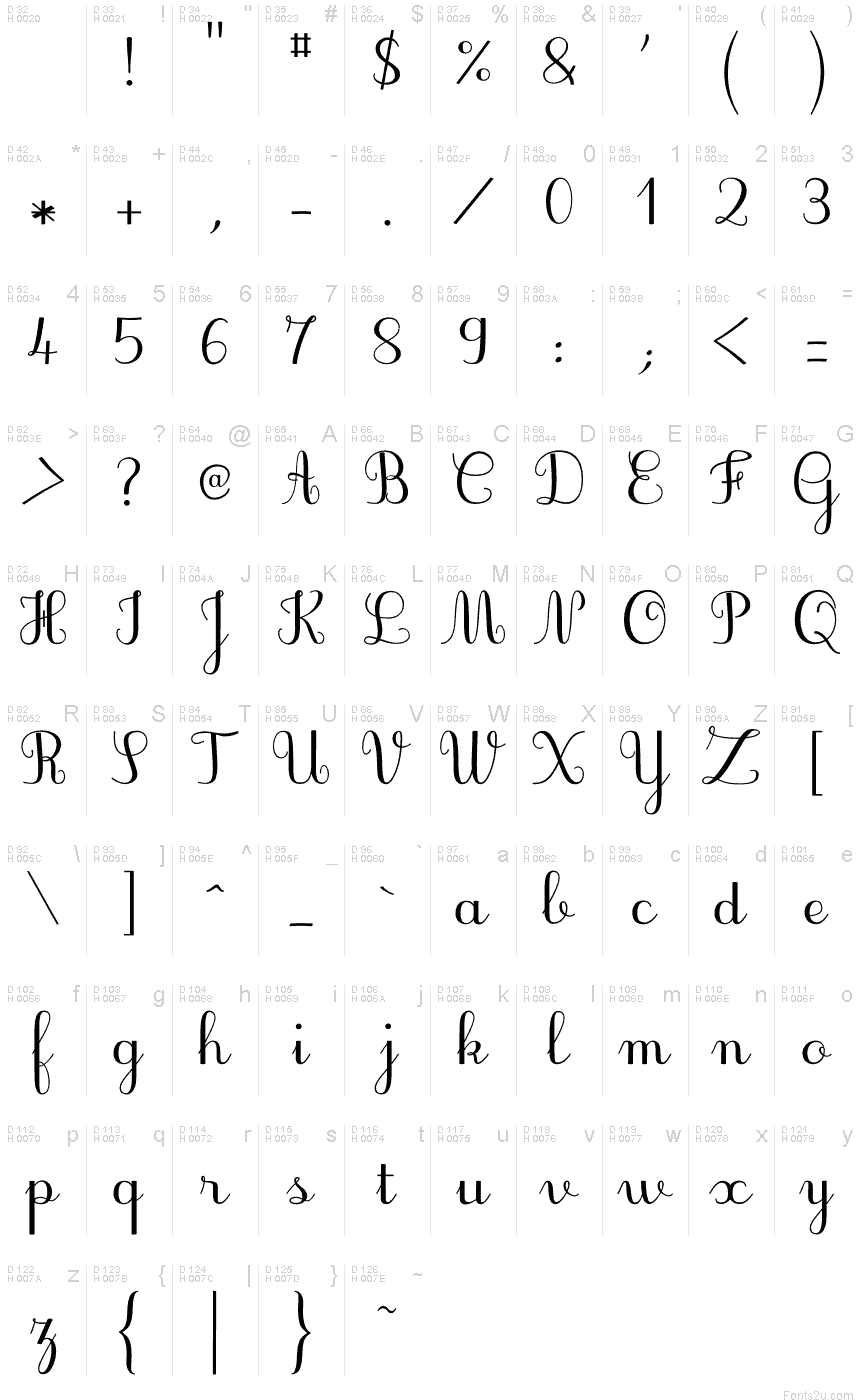
JBCursive-V3 Medium
JB Cursive V3 by Jean Boyault of JB Foundry is a free calligraphic script with towering loops, fine hairlines, and emphatic dark downstrokes. Its narrow letters flow into extravagant curls and sweeping joins.
For wedding invitations, the ornate movement feels formal and celebratory, yet the same dramatic silhouette can bring theatrical flair to fashion branding and perfume packaging. It has the scale and flourish of lettering made for ceremony. In editorial design, it suits feature openers and romantic cover lines.